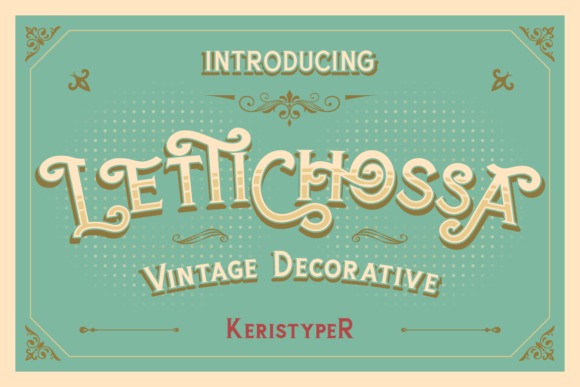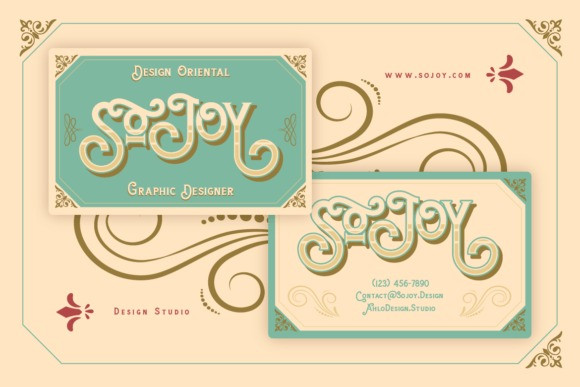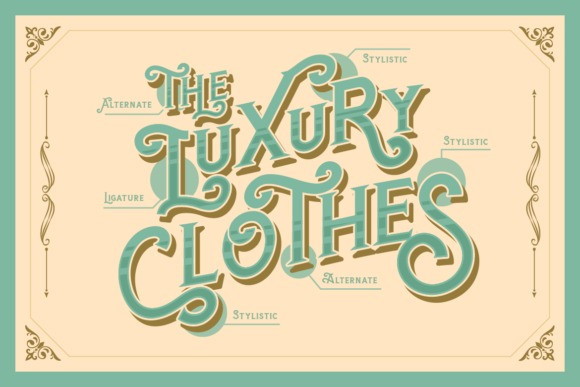
Lettichossa Font
Lettichossa is an old-fashioned typeface inspired by victorian and ornamental typography styles. This font is good for logo design, Social media, Movie Titles, Book Titles, short text, and even long text, and good for your secondary text.